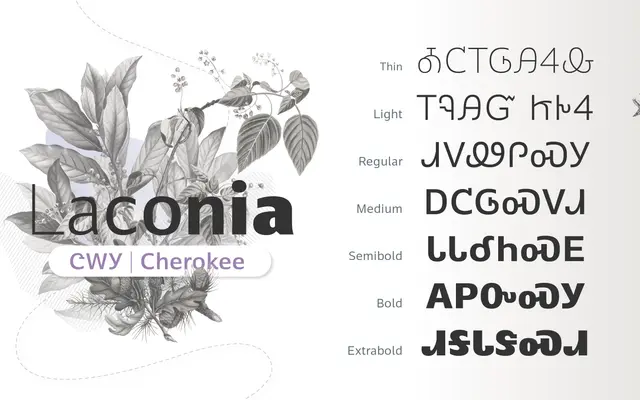
Laconia Cherokee
Tiro Typeworks · Ross Mills
A 14-style sans-serif family designed specifically for the Cherokee syllabary, covering the full script across seven weights with matching italics.
Designed by Ross Mills with assistant designers Paul Hanslow and Anna Štepanovská, this family brings a complete weight range from Thin to Extra Bold to the Cherokee script. Each weight pairs with a matching italic, giving Cherokee-language typographers the same compositional flexibility available in mature Latin families. The pay-what-you-want pricing reflects Tiro Typeworks' longstanding commitment to supporting minority script communities.
The specimen shows a clean, modulated sans-serif adapted for the Cherokee syllabary, with proportions and weight distribution consistent with humanist sans conventions applied to a non-Latin script.